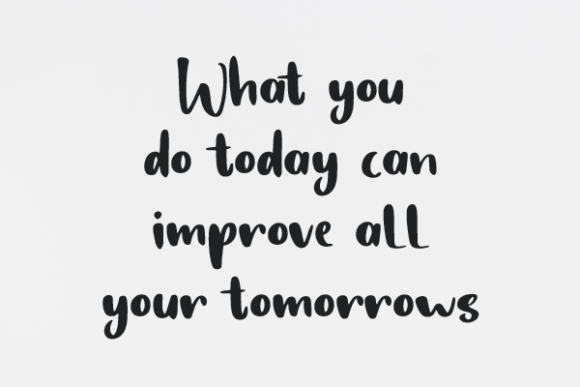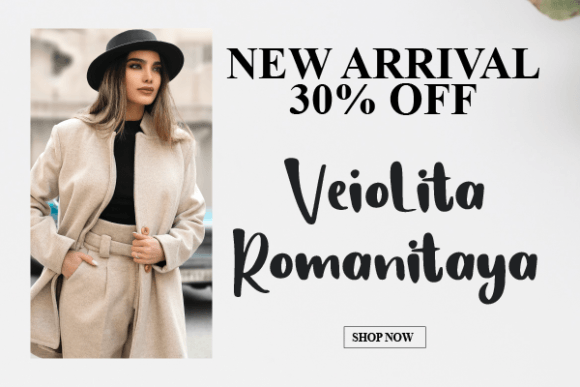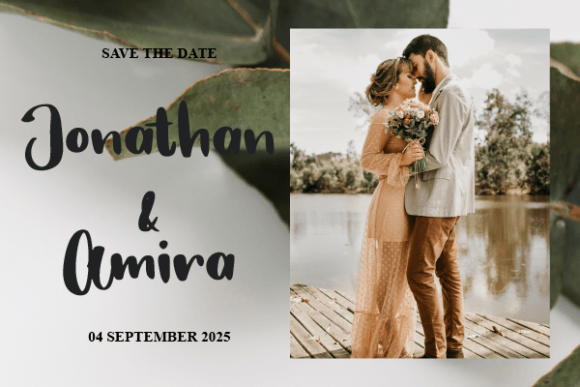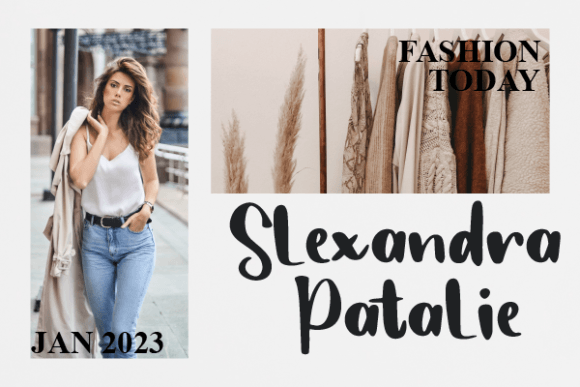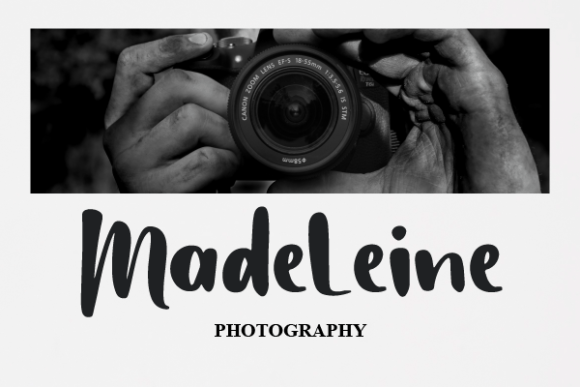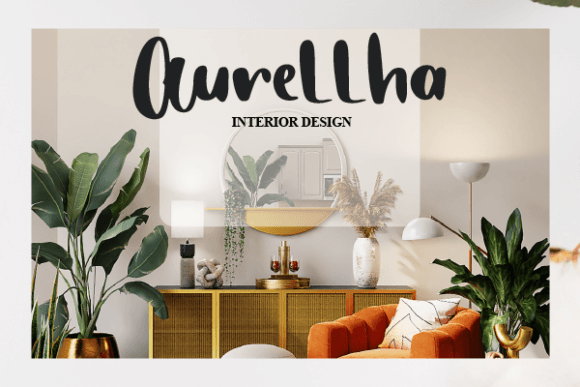
Introduction to Gregory Hartigan Font
Gregory Hartigan is a stylish and incredibly elegant script font.
It looks stunning on wedding invitations, thank you cards, quotes, greeting cards, logos, business cards, and every other design which needs a handwritten touch .
Key Features of Gregory Hartigan Font
Why Choose Gregory Hartigan Font?
Gregory Hartigan Font offers exceptional quality and versatility, making it a valuable addition to your design toolkit. Whether you’re creating for personal projects or commercial use, Gregory Hartigan Font delivers professional results.